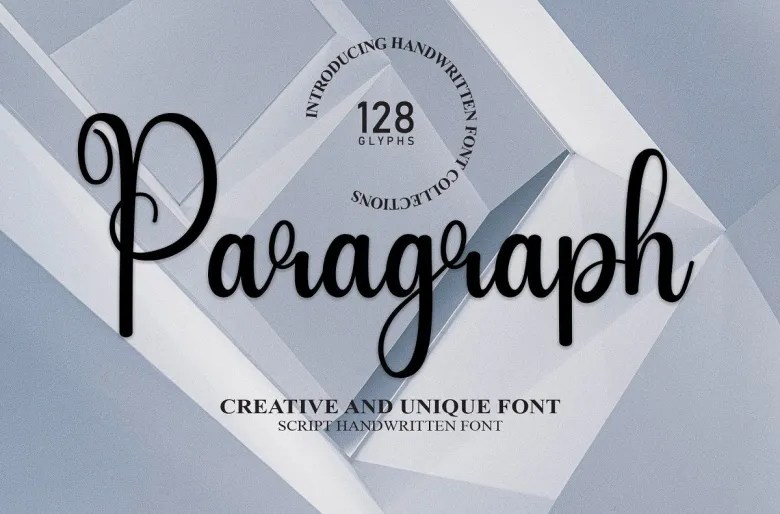
Paragraph Script Font
Paragraph Script is an enchanting handwritten typeface that brings a delightful and personal touch to your creative projects. Its endearing style and unique character make it perfect for designs that aim to evoke warmth and charm. Whether you’re working on wedding invitations, greeting cards, or personal letters, this font effortlessly adds a sense of intimacy and creativity.
Designed with flexibility in mind, Paragraph Script adapts seamlessly to a variety of themes and styles. Its balanced strokes and playful flair make it an excellent choice for projects that require a touch of elegance without losing a fun and approachable vibe. From branding materials to social media graphics, this typeface ensures every design stands out.
The creative potential of Paragraph Script is limitless. Its stylish appearance is ideal for enhancing the aesthetic of formal and casual projects alike. Use it to craft unique visual elements for events, product packaging, or decorative layouts that leave a lasting impression.